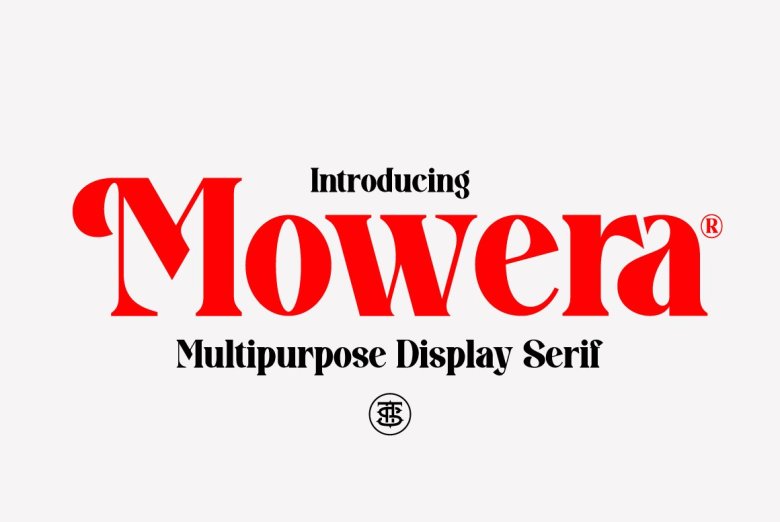
Mowera Font
Mowera fresh & modern serif style, I create the dancing baseline! Very beautiful on invitation like greeting cards, branding materials, business cards, quotes, posters, and more! The part of that advanced type, this typeface impressed with strong and modern display.
This typeface is good for display and headline text, big, bold, elegant, and strong. With its thick heavy letterforms, it creates a unique and strong identity, luxurious look and feel, and each letter has a strong presence.
It is good for your personal projects because each distinct letter is beautiful, and it will look good on your label, emblem, T-Shirt, and product.
Mowera Bold Serif Font